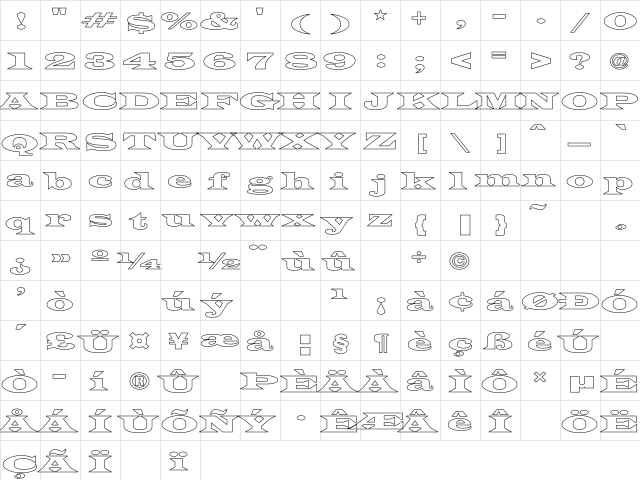
Latin-WideExt-Normal Hollow Regular
Design Context for Latin-WideExt-Normal Hollow Typeface
Latin-WideExt-Normal Hollow takes a measured approach to typography — its balanced proportions and neutral character make it a reliable workhorse for both digital and print work.